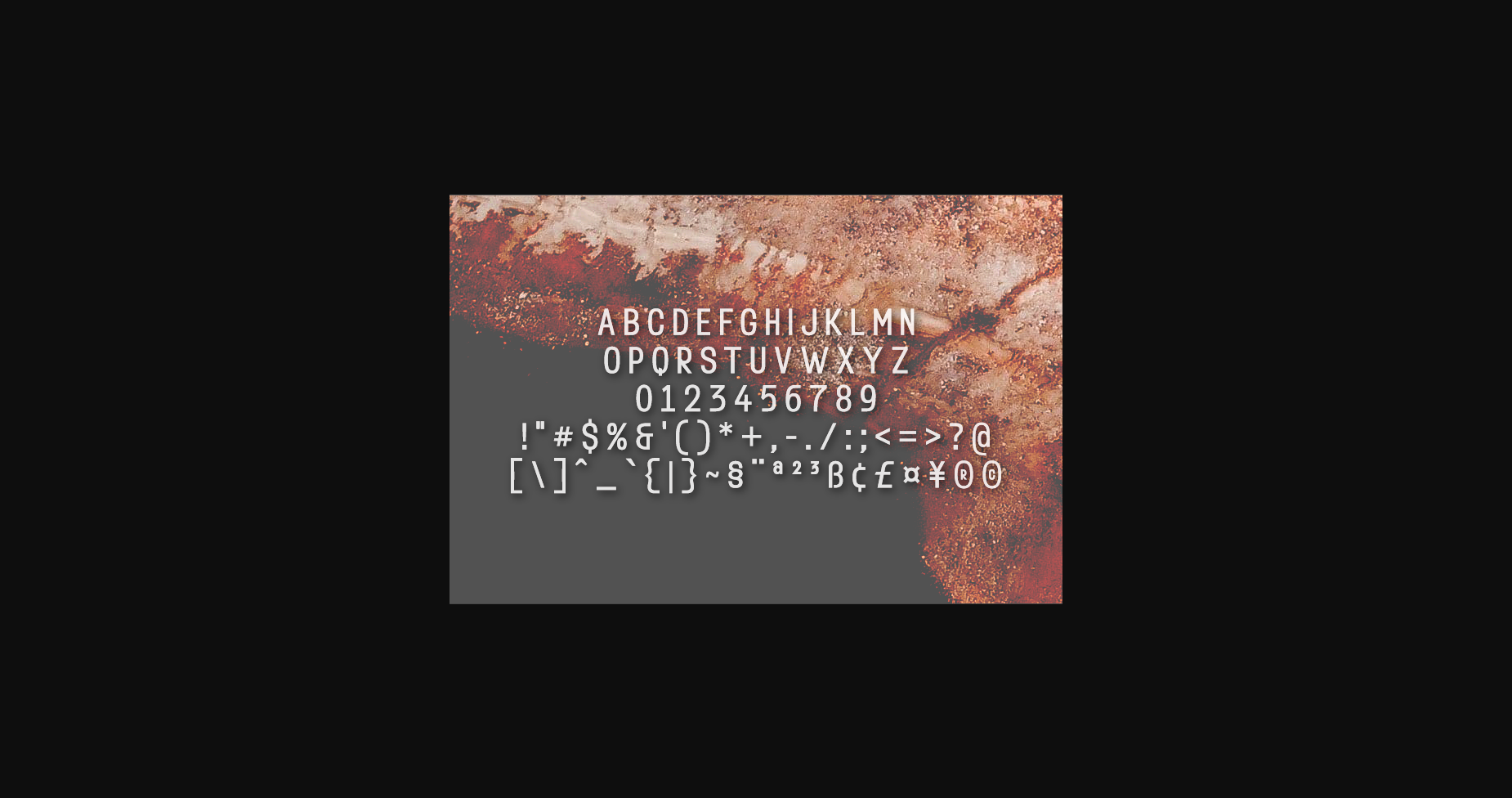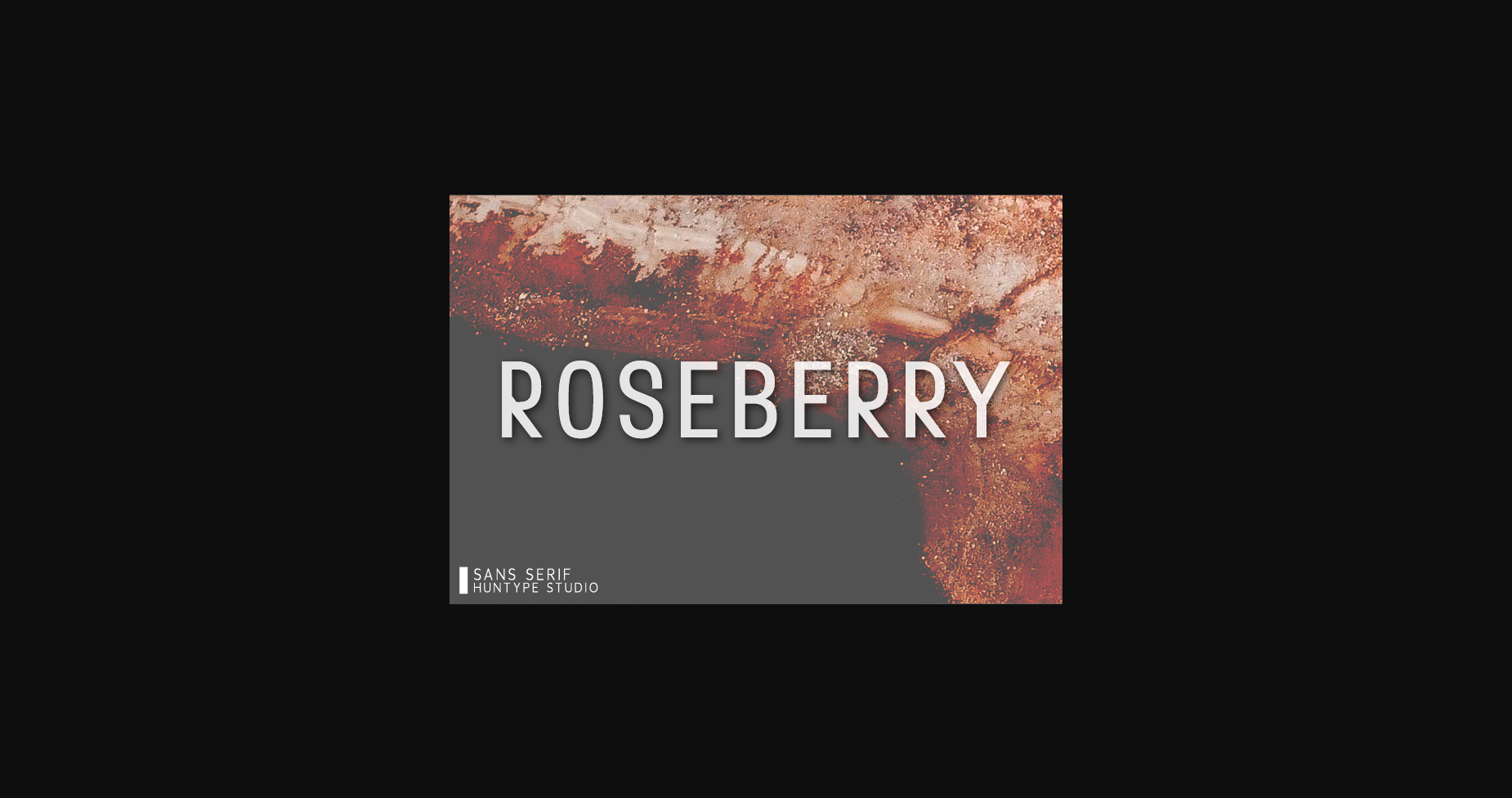
About Roseberry Font
Roseberry is a clean and simple lettered sans serif font. No matter the topic, this font will be an incredible asset to your fonts’ library, as it has the potential to elevate any creation.